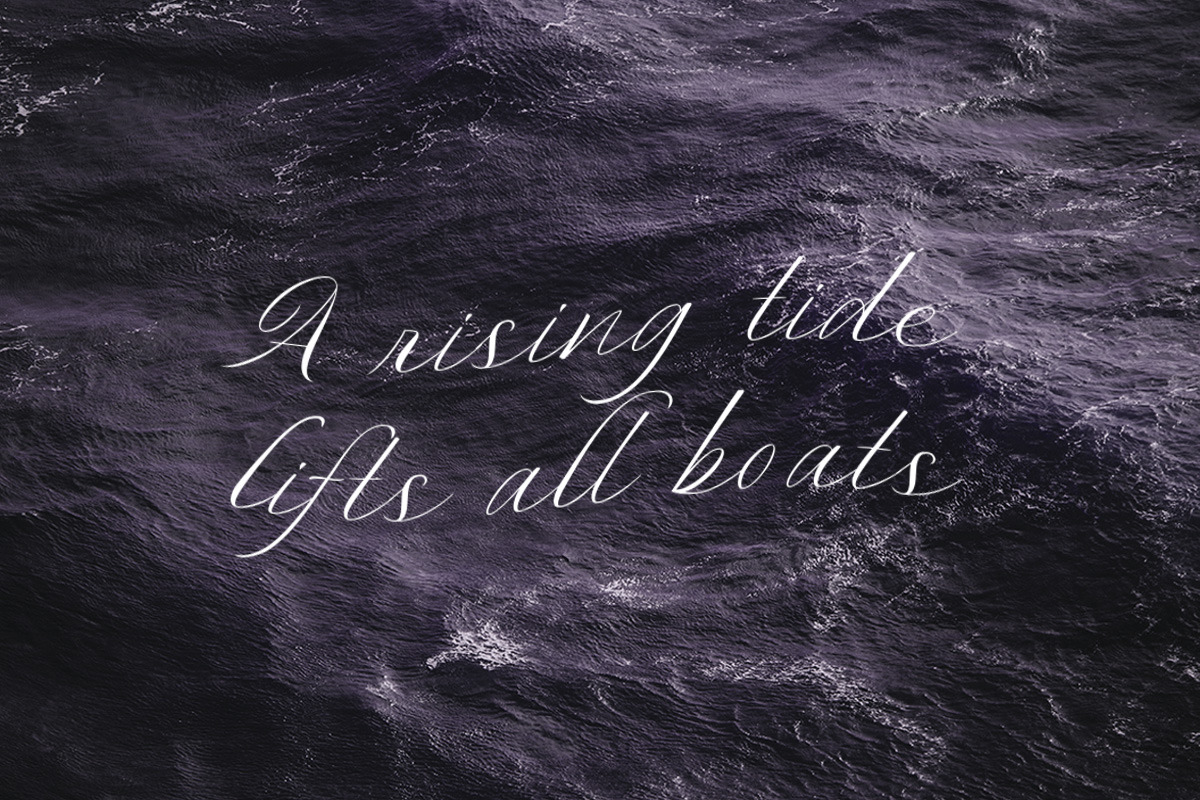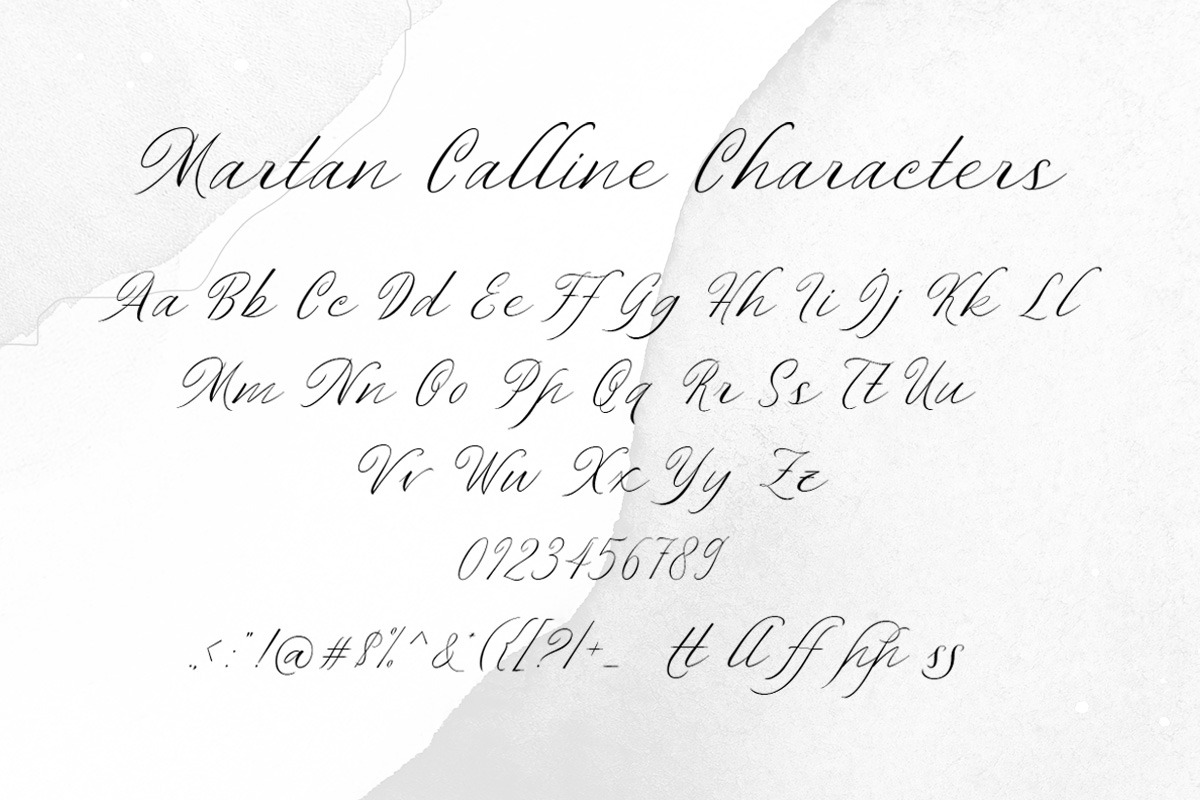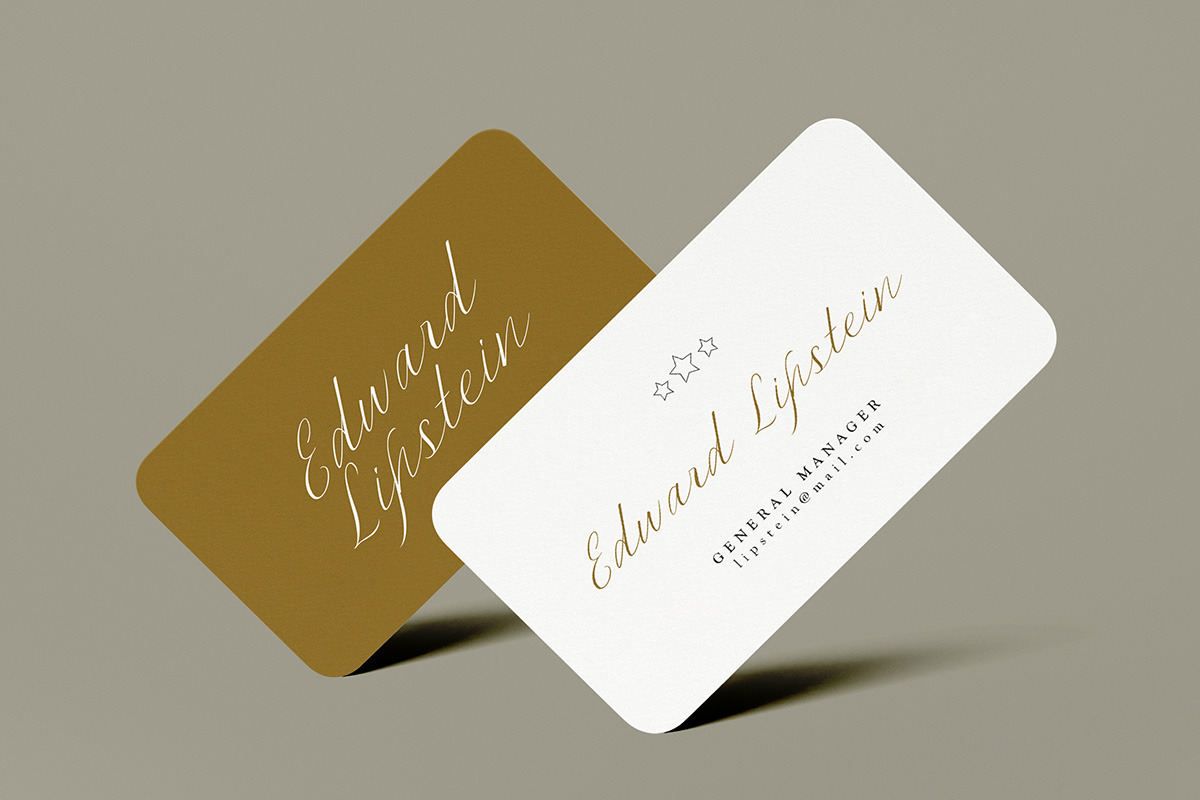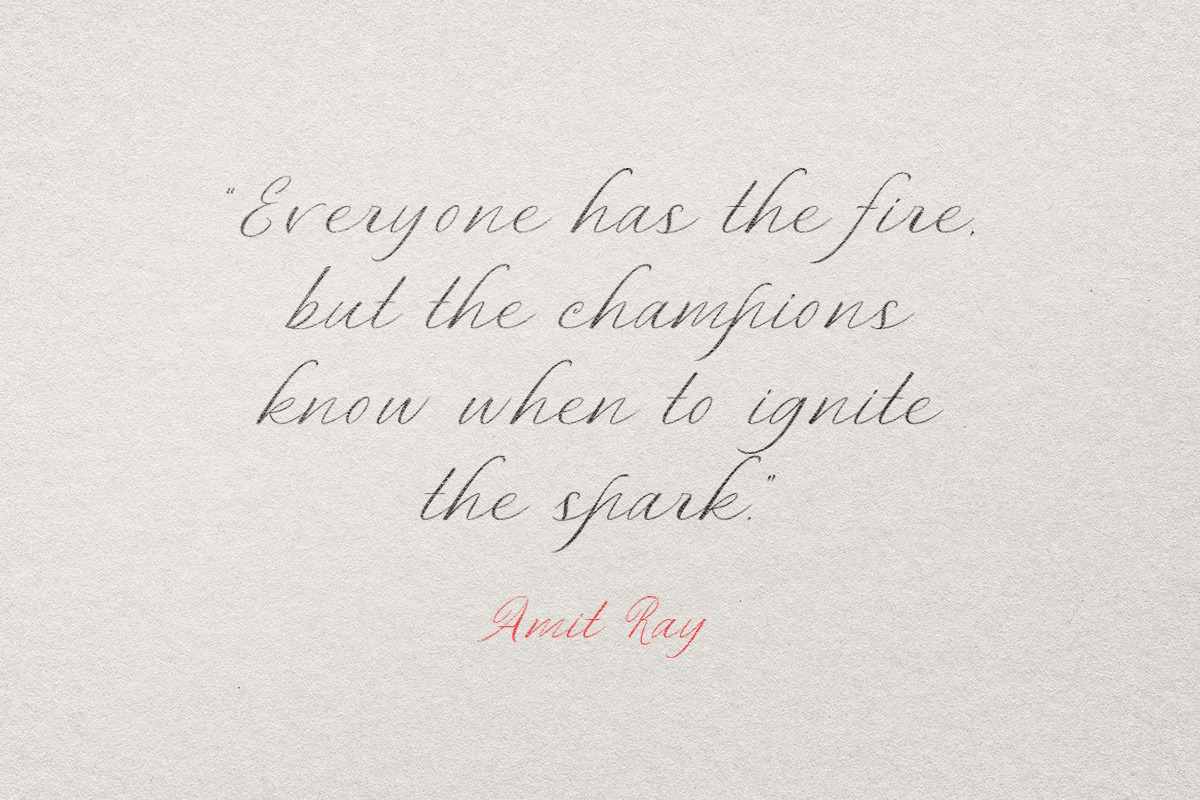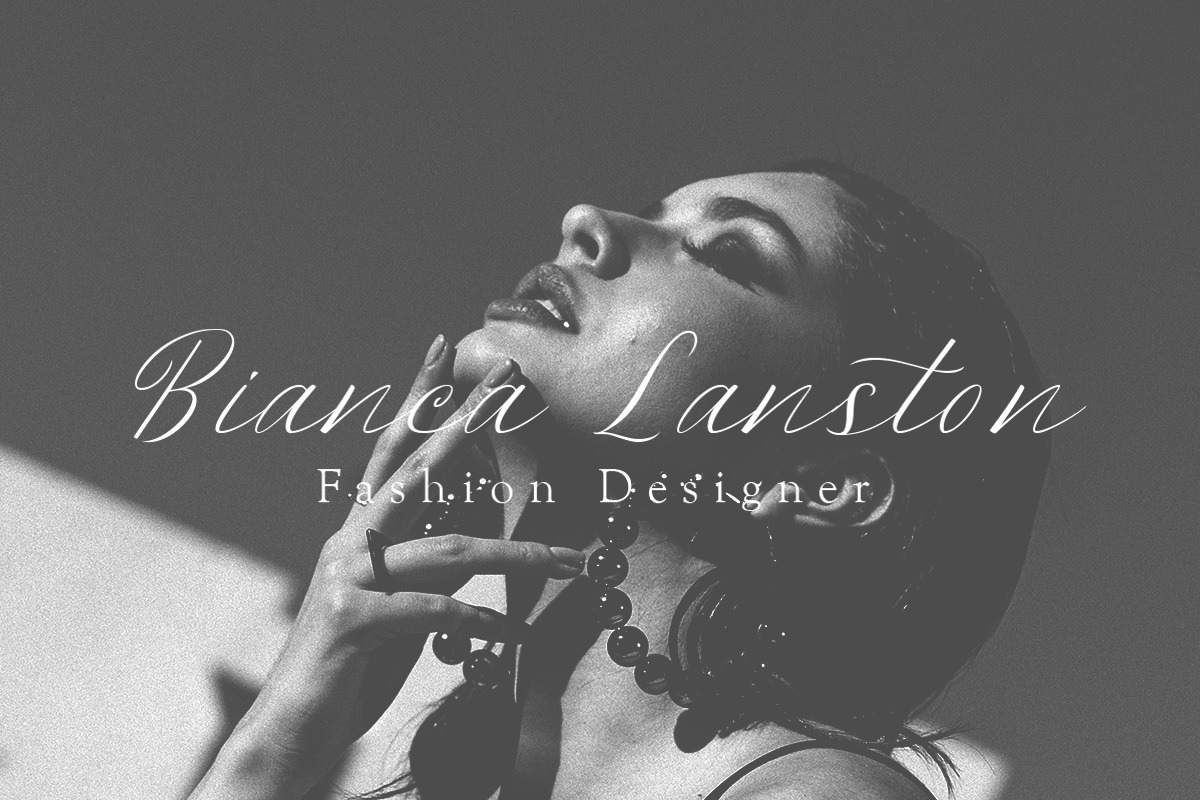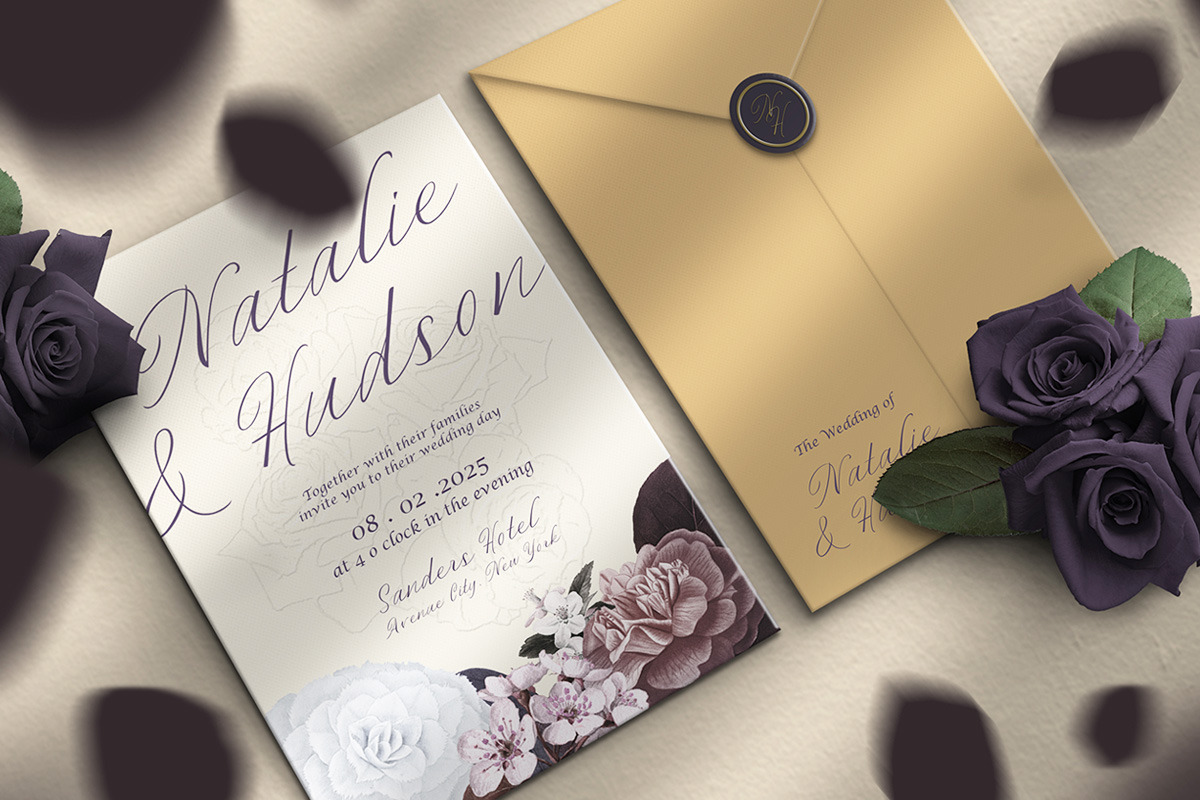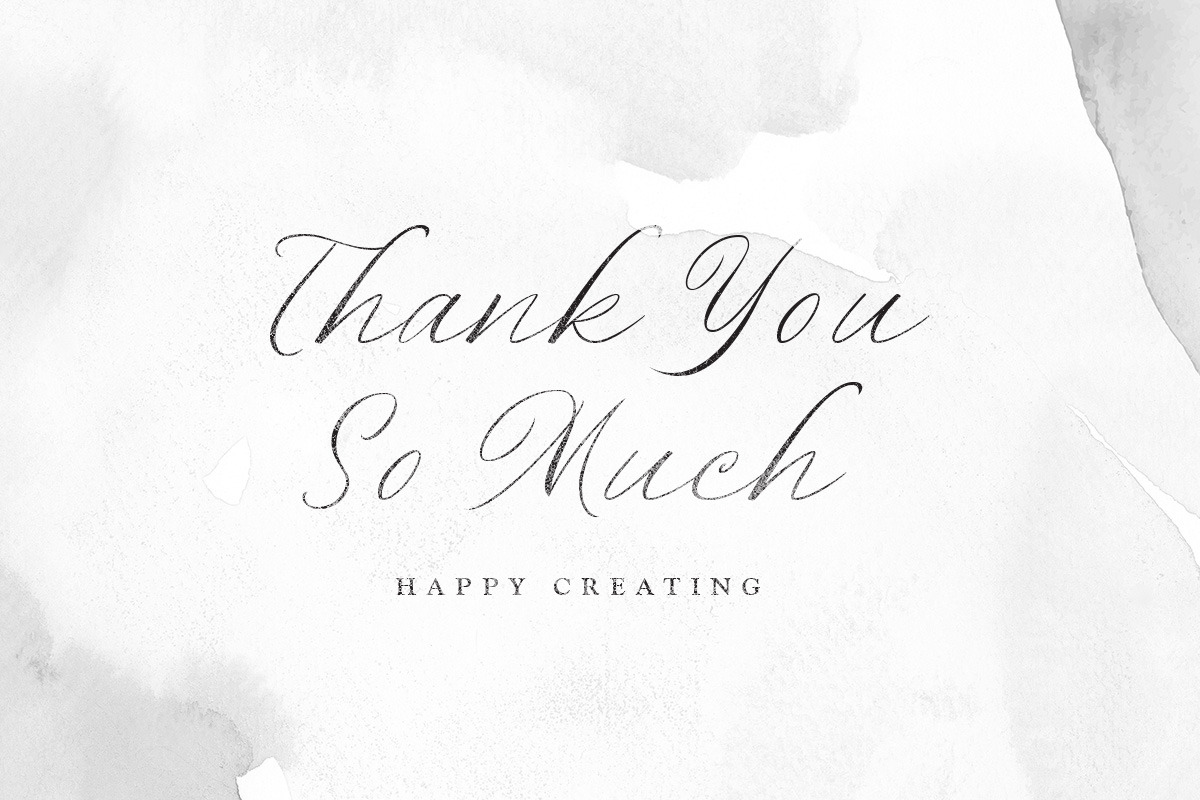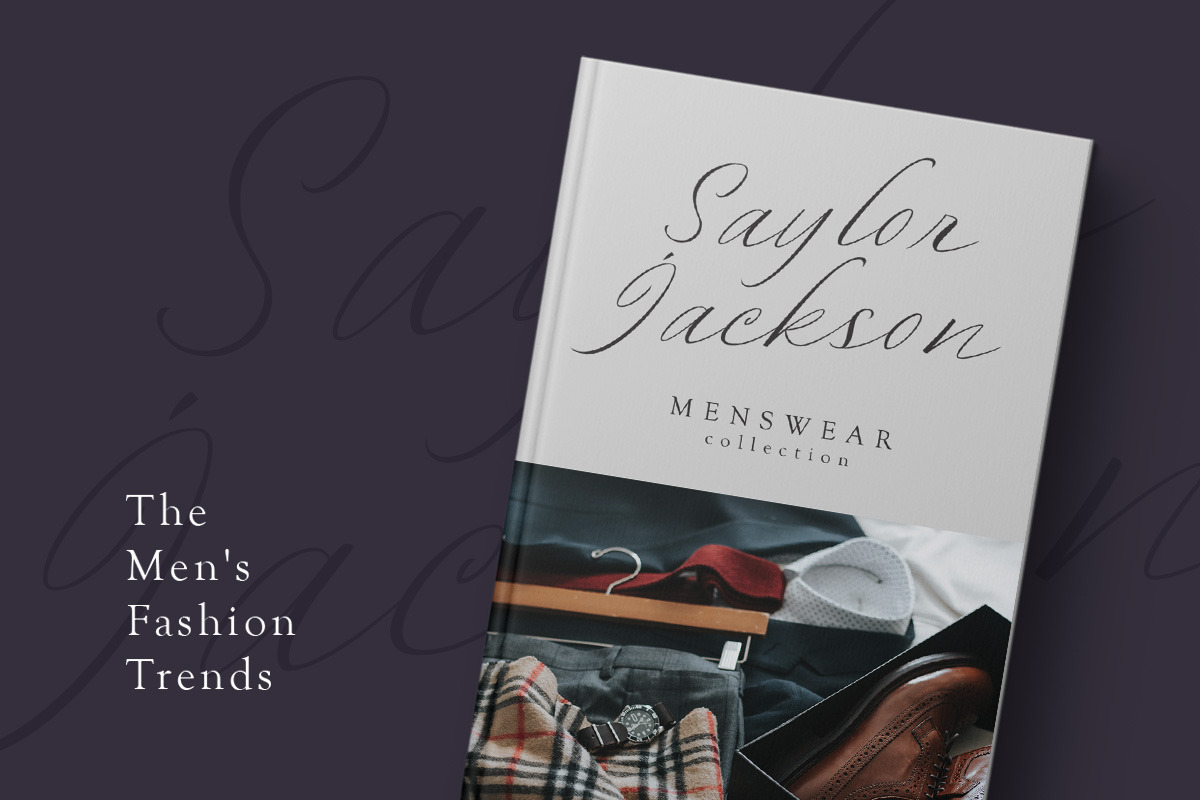
Martan Calline - Elegant Script
Martan Calline is a elegant and classy script based on manual calligraphy ink on a paper. This fnt has many swashes that allows you to create beautiful lettering instantly. it has many stylistic set alternates that you can choose from. The character of this typeface is bouncy with natural stroke which is make it looks naturally handwritten.
This font perfectly made to be applied especially in logo, and the other various formal forms such as invitations, labels, logos, magazines, books, greeting / wedding cards, packaging, fashion, make up, stationery, novels, labels or any type of advertising purpose.